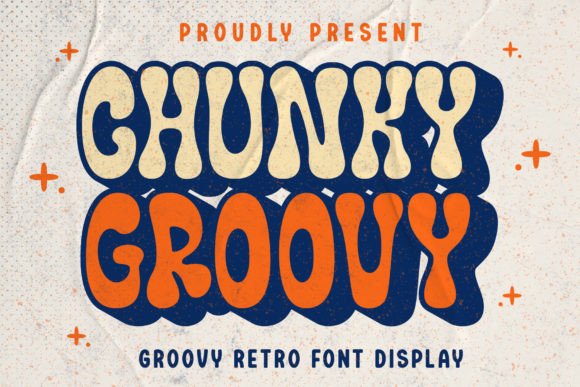
Introducing Chunky Groovy Font, the ultimate choice for all your creative needs! Created by the talented designers at Hoperative Design, this font brings a whole new level of fun and grooviness to your projects.
With its funky style and captivating appeal, Chunky Groovy Font is the go-to font for creating eye-catching t-shirts, stickers, children’s book covers, social media posts, and so much more! Its versatility knows no bounds, making it perfect for any design idea you have in mind.
What sets Chunky Groovy Font apart is its PUA encoding, granting you unlimited access to all the unique glyphs it offers. You have the freedom to let your creativity flow and experiment with various letter combinations to make your designs truly stand out.
Embrace the retro vibe and infuse your projects with the special touch that Chunky Groovy Font brings. Its captivating curves and playful demeanor evoke a sense of nostalgia, making it the best font choice for happy birthday celebrations or any occasion that calls for joy and excitement.